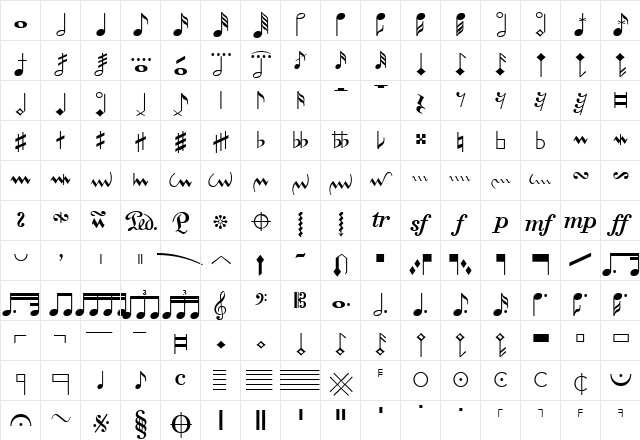
Nota1TT Regular
Design Context for Nota1TT Typeface
Nota1TT takes a measured approach to typography — its balanced proportions and neutral character make it a reliable workhorse for both digital and print work.